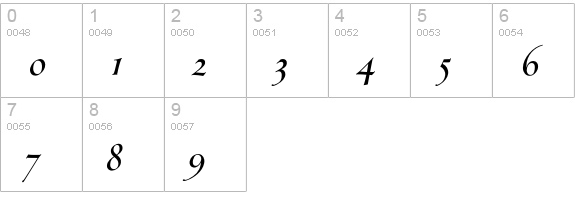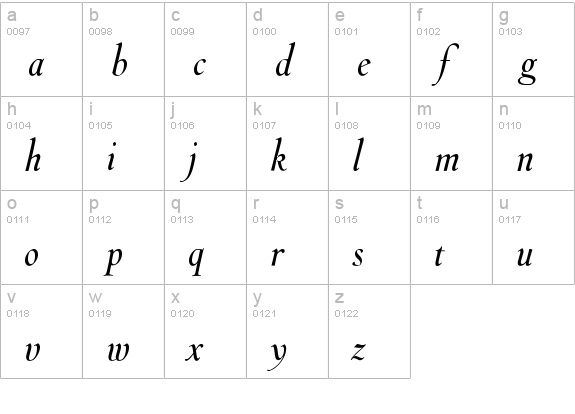
ThrohandInk-Italic Font Details
ThrohandInk-Italic is a distinctive, italic variant in the ThrohandInk typeface family \xE2\x80\x94 well suited to design and typography projects.
Introducing ThrohandInk-Italic, a captivating and charismatic font that will add a touch of elegance and sophistication to your designs. This unique typeface is the perfect blend of modernity and classic calligraphy, making it an ideal choice for various creative projects. ThrohandInk-Italic boasts a stunningly fluid and effortlessly flowing appearance, with each stroke exuding an air of grace and artistry. Its delicate curves and slanted angles create a sense of movement, giving your text a dynamic and engaging look. Designed with meticulous attention to detail, ThrohandInk-Italic is the epitome of style and versatility. Whether used for branding, packaging, invitations, or any other design endeavor, this font effortlessly elevates your creations to a whole new level of sophistication. And the best part? ThrohandInk-Italic is available for free! That's right, you can easily download this extraordinary font at FontsMarket.com, ensuring that you have access to its enchanting qualities without any cost. Now, you can enhance your projects with a touch of elegance and express your creativity without breaking the bank. So, why wait? Embrace the beauty of ThrohandInk-Italic and let your designs make a lasting impression. Download this exquisite font today and unlock a world of unlimited possibilities.